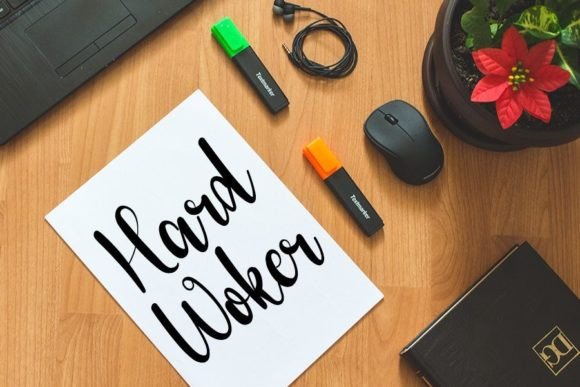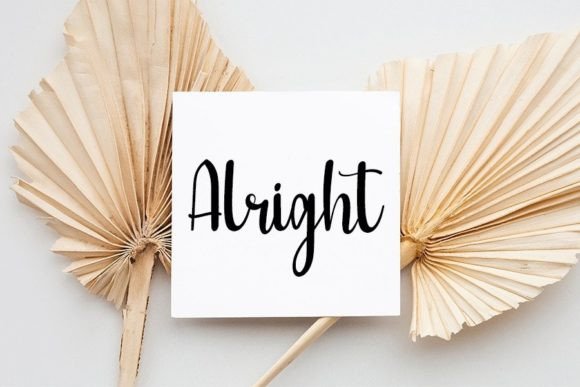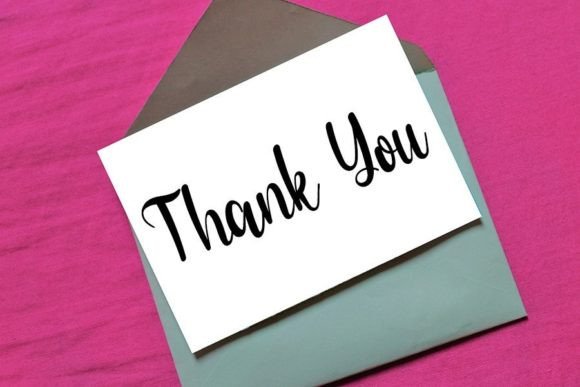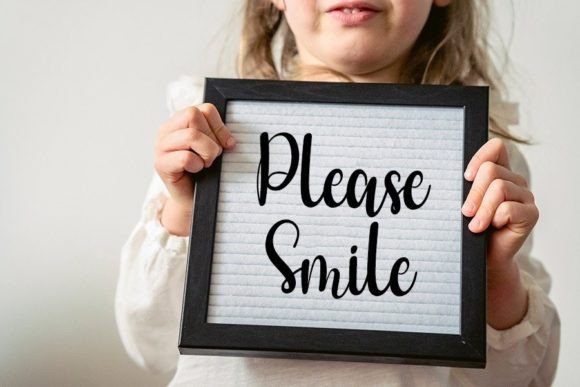
Someone Font
About Someone Font
“Someone” is a delightful handwritten font that has been meticulously crafted to become an instant favorite. With a friendly and approachable style, this font maintains its classy calligraphic influences while exuding a contemporary and fresh feel.
The font’s handwritten charm adds a personal touch to your text, making it a versatile choice for a variety of design projects. Whether you’re working on branding, invitations, greeting cards, or any creative endeavor, “Someone” brings a warm and inviting atmosphere to your typography.
While retaining its classy calligraphic roots, “Someone” introduces a modern and fresh twist, making it well-suited for those who appreciate a blend of timeless elegance and current design trends. This harmonious combination makes “Someone” a standout choice for various applications.
In branding, “Someone” imparts a personal and welcoming charm to logos and visual identities. Its handwritten style communicates authenticity, making it suitable for businesses and projects aiming to establish a genuine connection with their audience.
For invitations and greeting cards, “Someone” adds a friendly and celebratory touch. The font’s playful yet sophisticated character enhances the overall aesthetic, making it an ideal choice for special occasions and events.
Whether used in print or digital media, “Someone” adapts seamlessly, adding a touch of character to your text. Its versatility ensures that it becomes a cherished font in a wide range of design contexts, from professional to personal projects.
“Someone” is more than just a font; it’s a design asset that effortlessly combines friendliness, class, and a contemporary vibe. Let it become your go-to choice for projects that require a warm and stylish touch. Whether you’re designing for business or personal use, “Someone” is the font that captures the essence of both playfulness and sophistication.